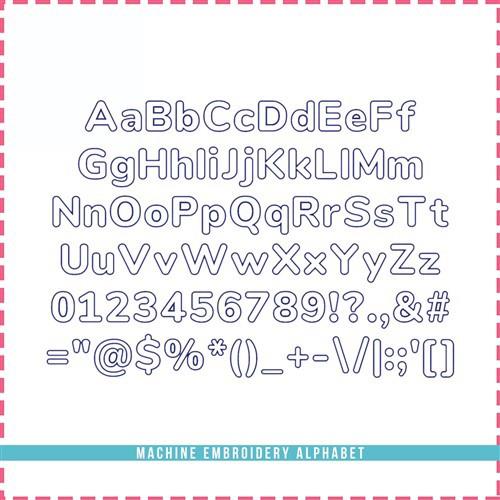
Nunito Applique Font - Playful Bubble-Like Letters - Home Format - PES, DST & 6 formats by Maya Kreations and other embroidery fonts available at EmbroideryDesigns.com.
Maya Kreations is happy to present Nunito Applique Font - Playful Bubble-Like Letters - Home Format - PES, DST & 6 formats machine embroidery font which has Nunito Applique Font offers playful bubble-like letters outlined in a contrasting color, perfect for adding cheer to children's clothing and accessories. This machine embroidery font is available in PES, DST, and other formats. included. If you would like to view more embroidery fonts and alphabets please search our embroidery fonts page.